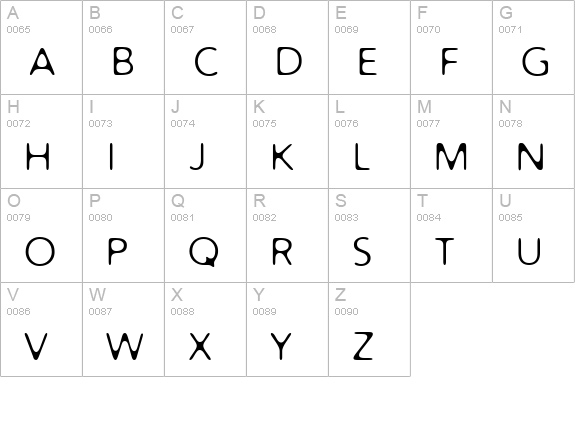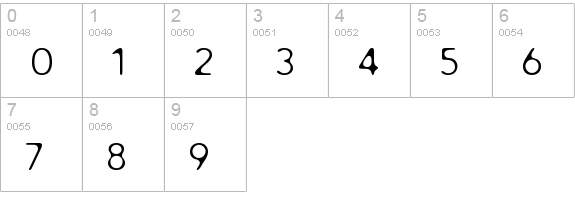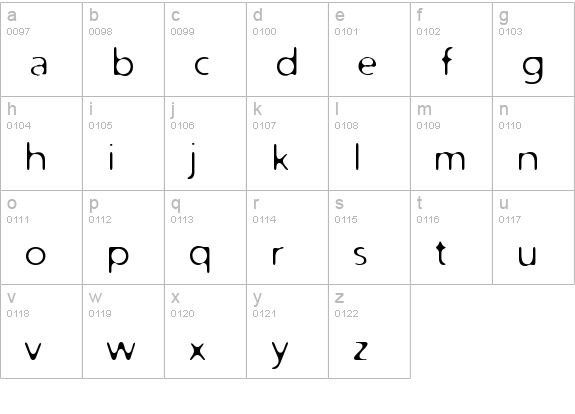
Distro Light Font Details
Distro Light is a refined, elegant variant in the Distro typeface family \xE2\x80\x94 well suited to elegant body text, refined sub-headings, and luxury branding.
Distro Light font is a stunning typeface that effortlessly combines elegance with modernity. With its sleek and clean lines, this font exudes a sense of sophistication and professionalism, making it perfect for a wide range of design projects. But what sets Distro Light font apart is not just its stunning aesthetics, but also the fact that it is available for free. Yes, you read that right - this exceptional font can be downloaded and used without any cost. Whether you are a professional designer or a hobbyist, this font offers you the opportunity to elevate your creations without having to worry about breaking the bank. To access this amazing font, simply head over to FontsMarket.com. There, you will find a vast collection of fonts, including Distro Light font, all available for free download. FontsMarket.com is a reputable platform that provides a seamless and user-friendly experience, ensuring that you can easily find and download the fonts you need to bring your designs to life. So, what are you waiting for? Dive into the world of Distro Light font and unleash your creative potential. Download it today from FontsMarket.com and experience the power of this exceptional font for yourself.